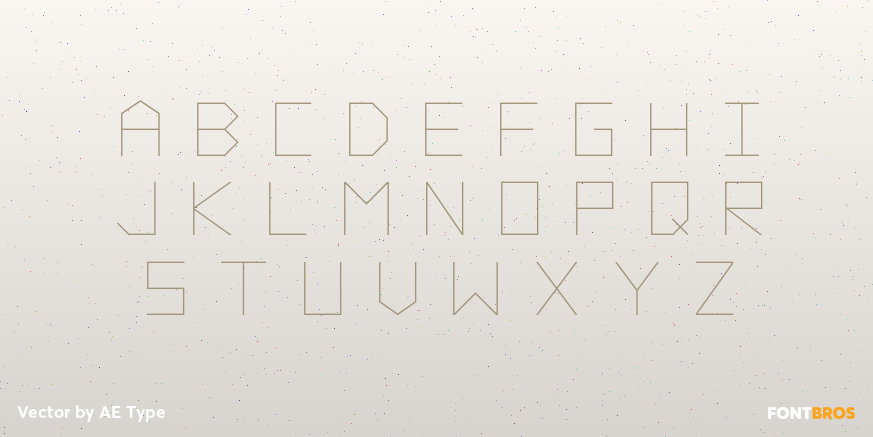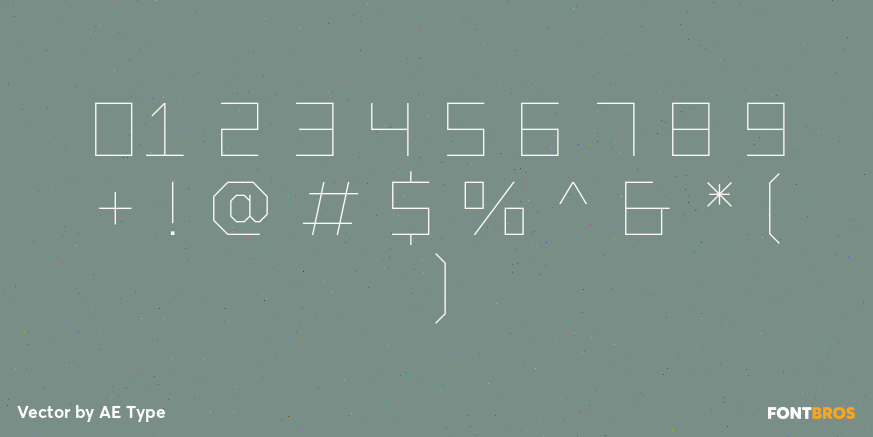
Vector
Font Family by AE Type
Vector is inspired by the 1979 Atari Asteroids video game UI screen font, yet it has been completely reworked to achieve a more balanced and refined visual aesthetic, loosely adhering to the original source. Letterform widths, angles, metrics, and kerning are thoroughly tweaked throughout in an effort to recreate a modern classic anew and extend it's functionality.
Stylistically, Vector accurately reflects it's name, exuding a uniform sense of flatness and rectangular geometry defined by it's retro-modernist origins.
Features include:
• Expanded ligature set (16 unique ligatures, plus alternates)
• Alternate characters (O, I, A, Y, S, #, $,